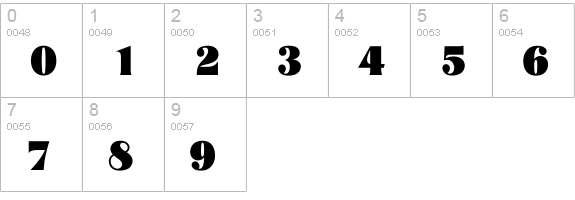
Nashvi Heavy Font Details
Nashvi Heavy is a heavy, high-impact variant in the Nashvi typeface family \xE2\x80\x94 well suited to high-impact headlines, posters, and display advertising.
Nashvi Heavy is a bold and impactful font that commands attention with its strong and sturdy letterforms. Designed to make a statement, this typeface exudes power and confidence, perfect for headlines, titles, and branding projects that need to stand out. The thick strokes and sharp edges of Nashvi Heavy give it a modern and industrial feel, making it a versatile choice for a wide range of design applications. Best of all, Nashvi Heavy is available for free download at FontsMarket.com, allowing designers and creatives to access this striking font without any cost. Whether you're working on a personal project or a commercial endeavor, Nashvi Heavy offers a high-quality typographic solution that is both visually striking and easily accessible. Download Nashvi Heavy today and elevate your designs with its bold and impactful presence.